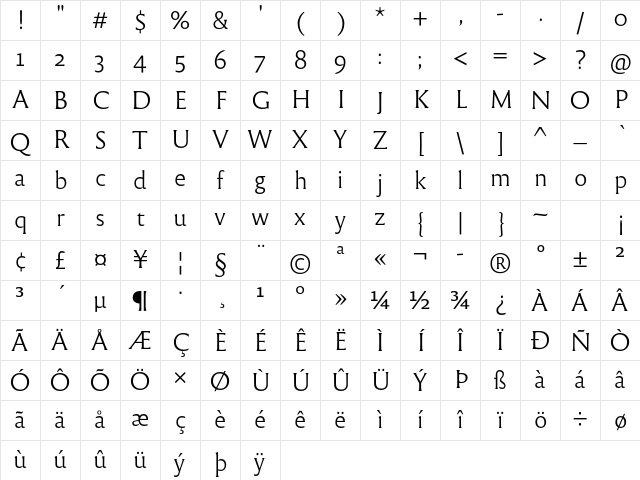
Reforma 1969 Blanca
Style: Blanca
Foundry: PampaType font foundry
Designer: Alejandro Lo Celso
Design Context for Reforma 1969
Reforma 1969 is a composed and adaptable typeface that performs quietly and consistently across a wide range of design contexts.